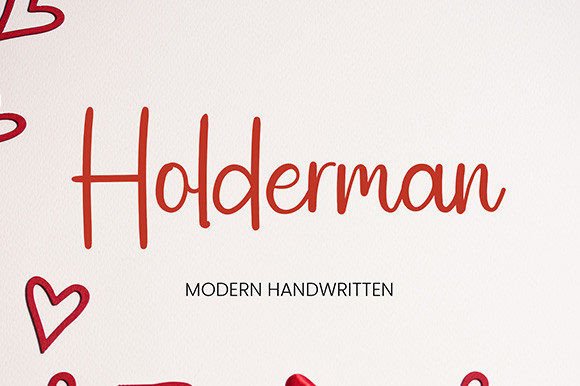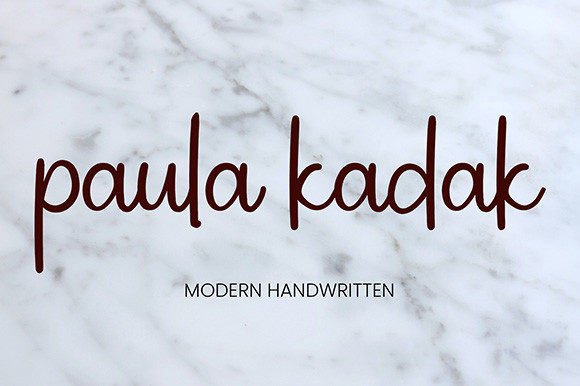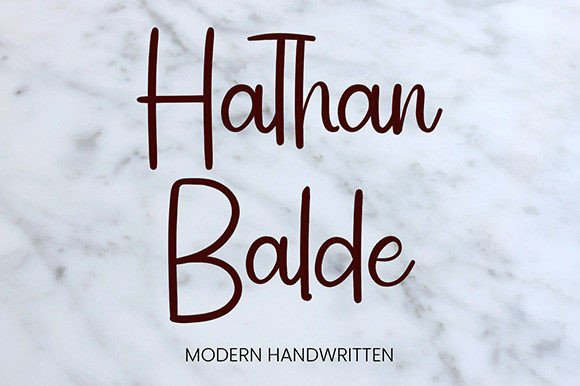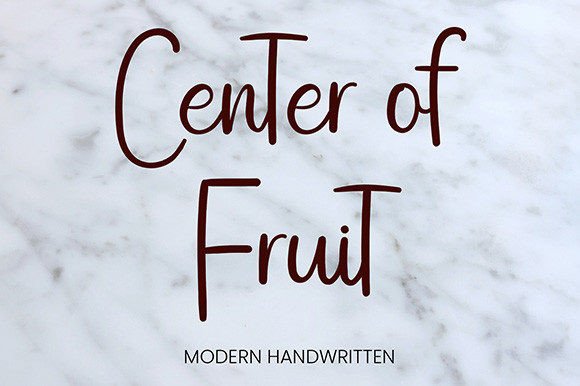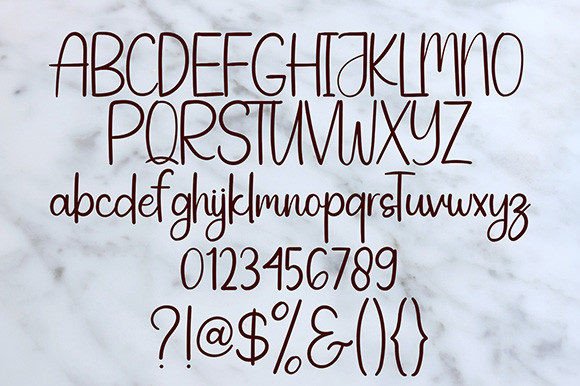
Introduction to Kathrine Font
Kathrine is a delicate, elegant and flowing handwritten font.
It has beautiful and well-balanced characters and as a result, it matches a wide pool of designs .
Key Features of Kathrine Font
Why Choose Kathrine Font?
Kathrine Font offers exceptional quality and versatility, making it a valuable addition to your design toolkit. Whether you’re creating for personal projects or commercial use, Kathrine Font delivers professional results.